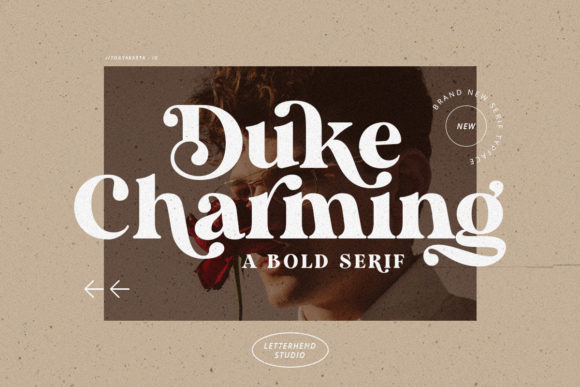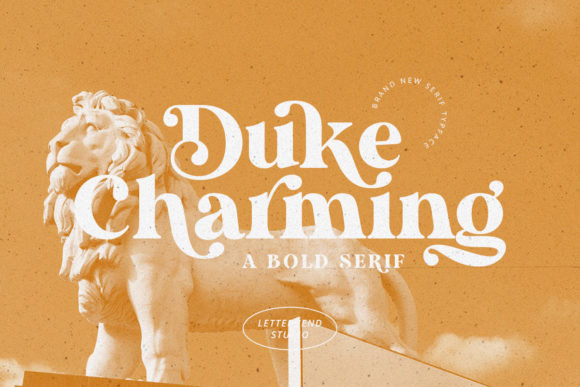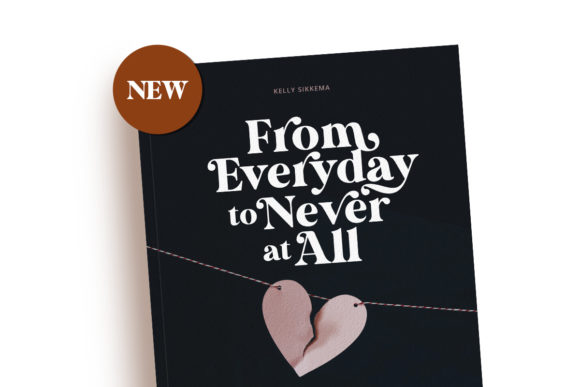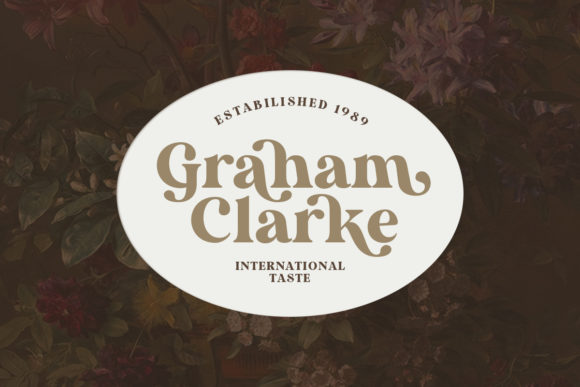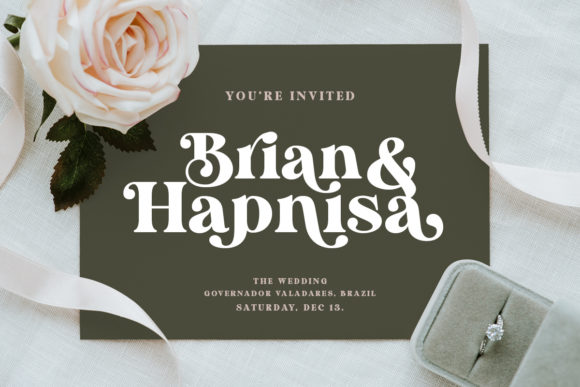
Duke Charming Font
Duke Charming is a bold and unique serif font. It features a fancy style and it will elevate a wide range of projects to the highest levels.